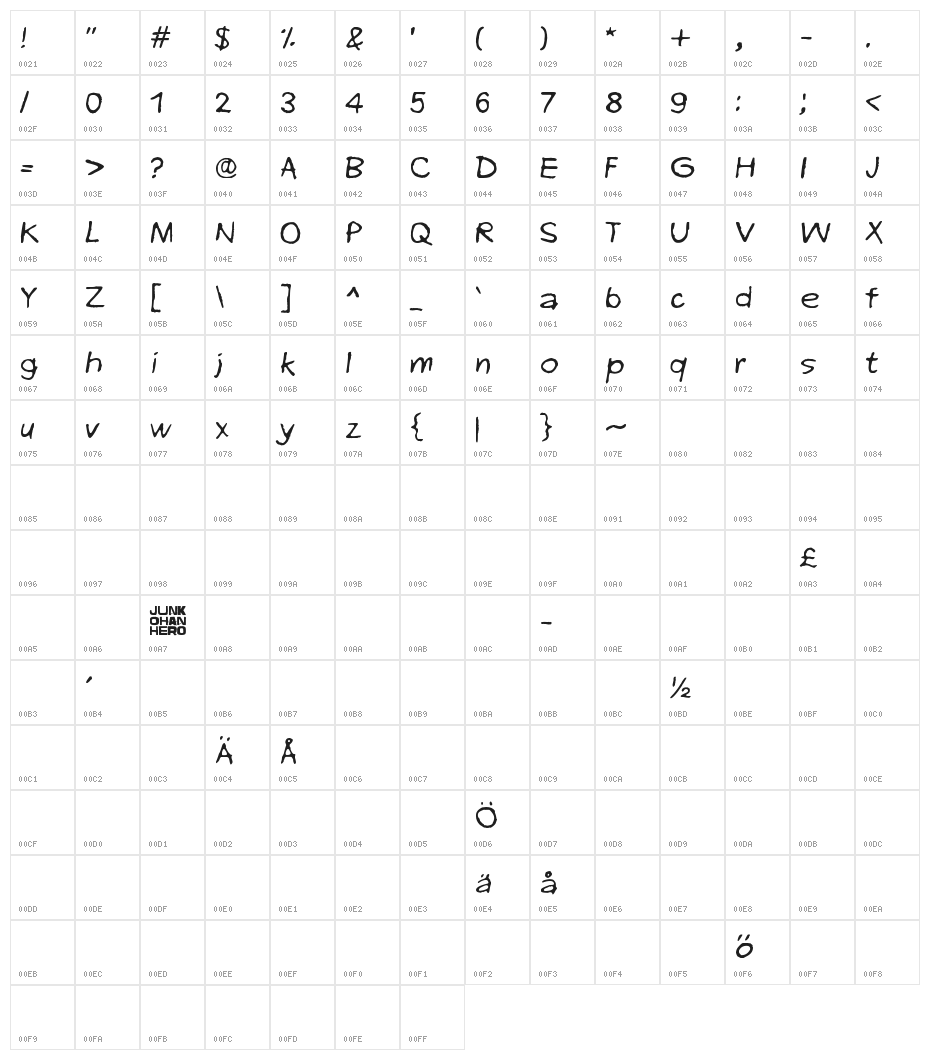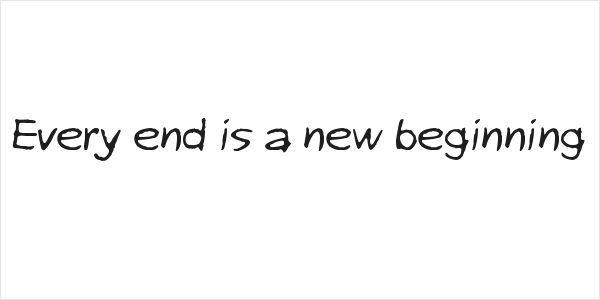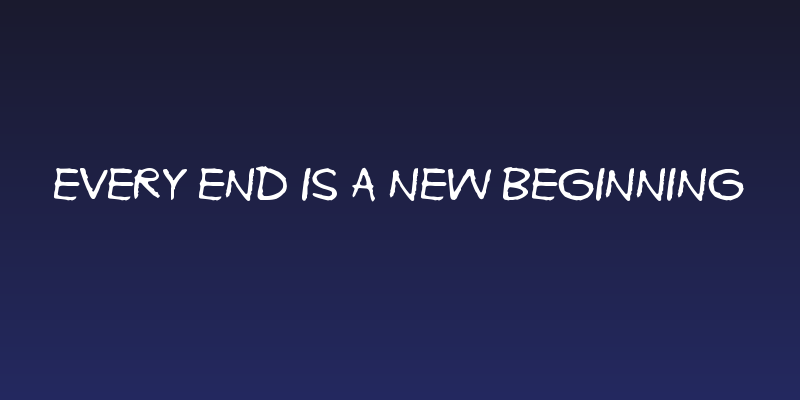
Every end is a new beginning Font
Every end is a new beginning Description
This font features a casual, handwritten style with a playful and informal appearance. The letters are slightly irregular, giving it a natural and authentic feel, reminiscent of a personal note or journal entry. The strokes are moderately thick, with a consistent weight that maintains readability while adding a touch of personality. The characters are well-spaced, ensuring clarity and legibility even in smaller sizes. This font's unique charm lies in its imperfect lines and curves, which add warmth and approachability to any text.
| Use Case | Greeting cards, Invitations, Personal notes |
| Proposed Projects | Ideal for personal notes, invitations, greeting cards, and creative projects that require a personal touch. |